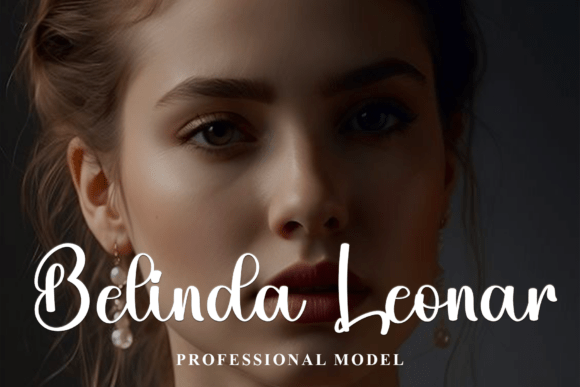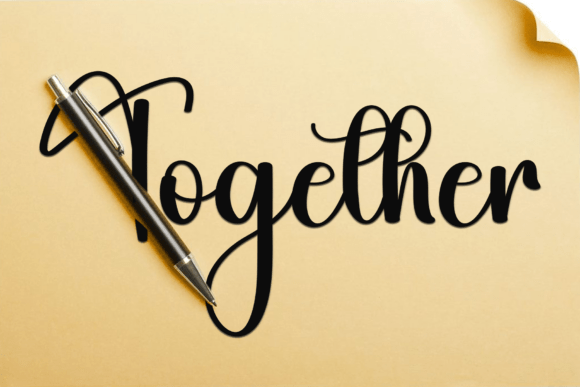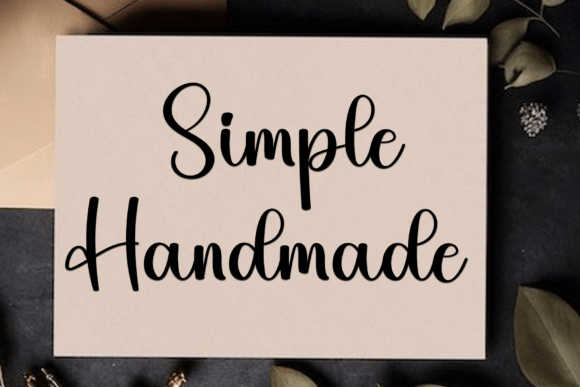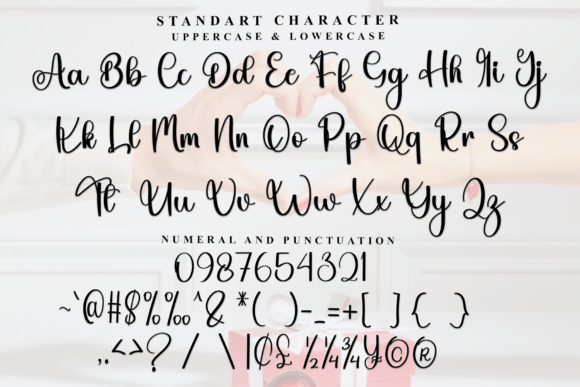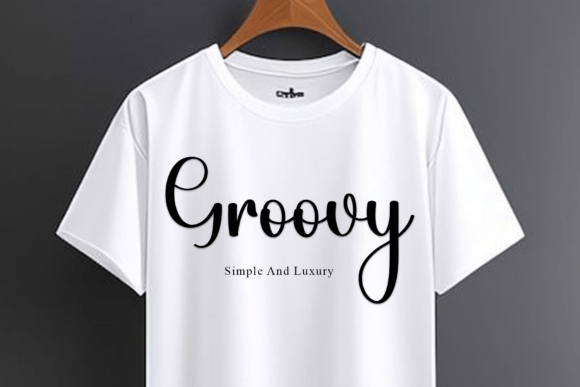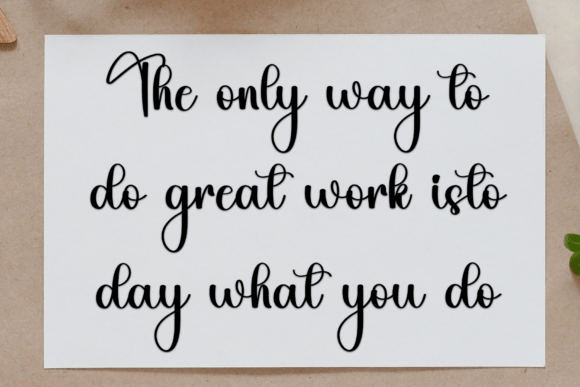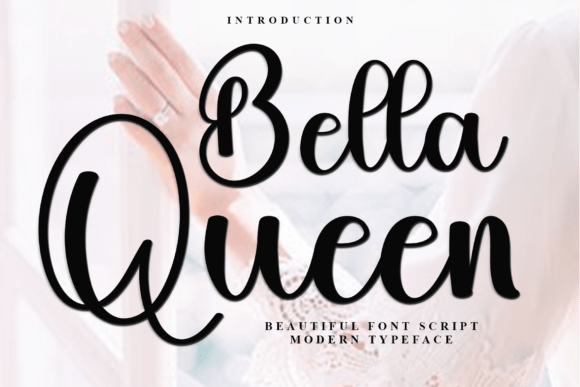
Bella Queen Font: The Perfect Choice for Creative and Personal Projects
Are you looking for a font that exudes warmth and friendliness? Do you want to add a personal touch to your designs, invitations, and social media graphics? Look no further than the Bella Queen font. This casual and creative font is perfect for anyone who wants to create a relaxed and approachable feel in their designs.
The Characteristics of Bella Queen Font
The Bella Queen font is characterized by its round, playful strokes that create a charming and hand-drawn aesthetic. The font’s unique and fun design adds a touch of personality to any project, making it perfect for personal projects, invitations, and social media graphics. The font’s relaxed and approachable feel makes it ideal for designers and crafters who want to create a warm and friendly atmosphere in their designs.
What Makes Bella Queen Font Special?
Uses of Bella Queen Font
The Bella Queen font can be used in a wide range of projects, including:
- Personal projects: The font’s casual and creative design makes it perfect for personal projects such as scrapbooking, journaling, and crafting.
- Invitations: The font’s charming and hand-drawn aesthetic makes it ideal for creating invitations for parties, weddings, and other special events.
- Social media graphics: The font’s relaxed and approachable feel makes it perfect for creating social media graphics, such as Facebook posts, Instagram stories, and Twitter headers.
- Branding: The font’s unique and fun design makes it suitable for branding projects, such as logos, business cards, and letterheads.
Benefits of Using Bella Queen Font
There are several benefits to using the Bella Queen font in your designs. Some of the benefits include:
- Unique and creative design: The font’s charming and hand-drawn aesthetic adds a touch of personality to any design.
- Easy to read: The font’s round and playful strokes make it easy to read, even at small sizes.
- Versatile: The font can be used in a wide range of projects, from personal projects to branding and social media graphics.
Tips for Using Bella Queen Font
Here are some tips for using the Bella Queen font in your designs:
- Use it with a personal touch: The font’s casual and creative design makes it perfect for personal projects. Add a personal touch to your designs by using the font in combination with other creative elements.
- Experiment with different sizes: The font’s unique and fun design makes it suitable for use at various sizes. Experiment with different sizes to find the one that works best for your project.
- Pair it with other fonts: The font’s relaxed and approachable feel makes it perfect for pairing with other fonts. Try pairing it with a bold font for a contrasting look or with a script font for a more elegant feel.
The Bella Queen font is a casual and creative font that exudes warmth and friendliness. Its round, playful strokes create a relaxed and approachable feel, perfect for personal projects, invitations, and social media graphics. The font’s charming, hand-drawn aesthetic adds a fun and unique touch to any design. With its standard PUA Encoded glyphs and compatibility with popular design software, the Bella Queen font is a versatile and practical choice for designers and crafters.